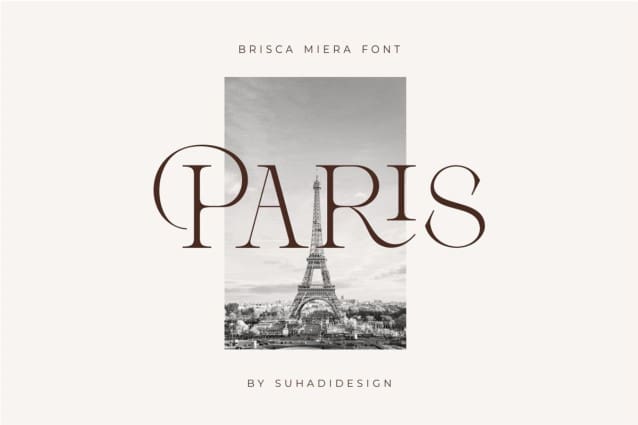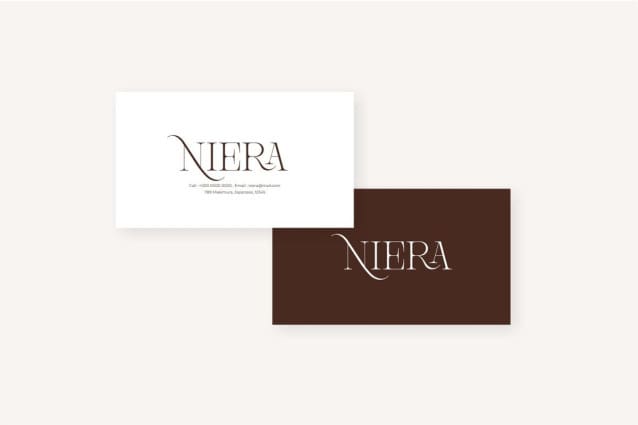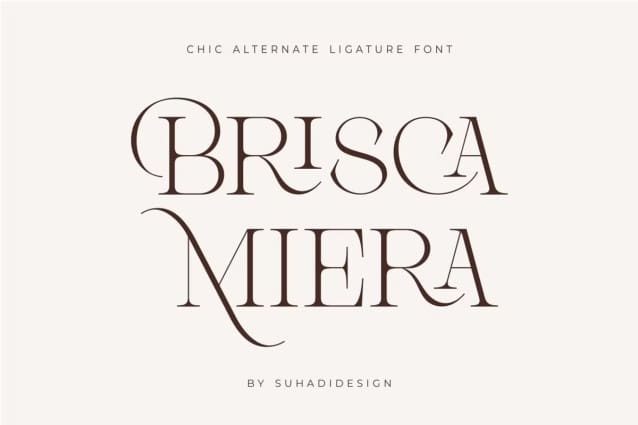
Brisca Miera Font
Brisca Miera font is an elegant and classy serif font. With its elegant style and stylish clasp, this font has become a favorite font in the market. We keep this font elegant, classy, ​​stylish. Brisca Miera font is a great choice for magazines, designs, books, publications, branding, brand names, business cards, social media, luxury design, newspapers, branding, beauty and other projects. BriscaMiera font is here to enhance the quality of your designs.